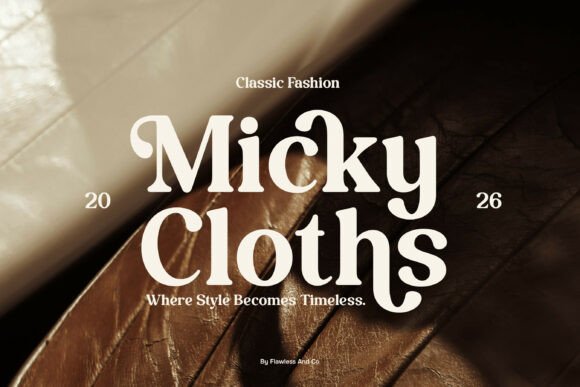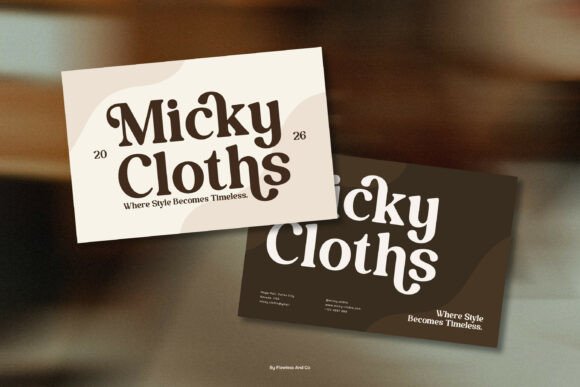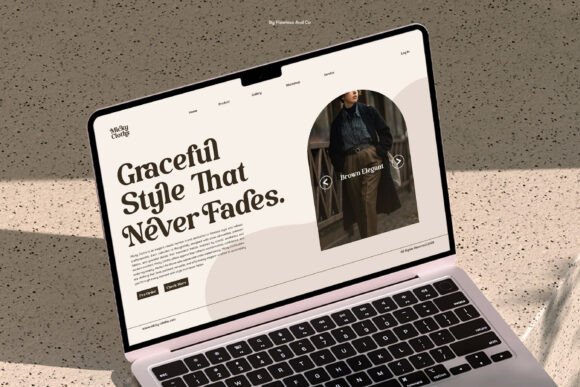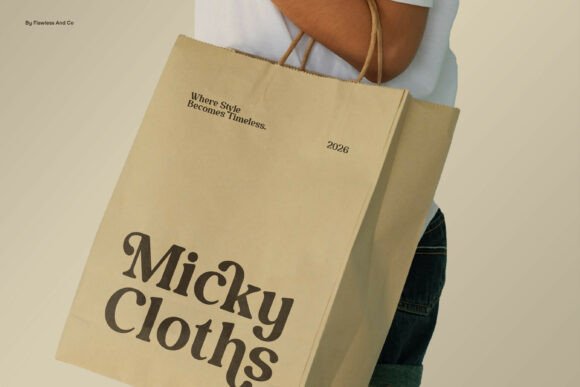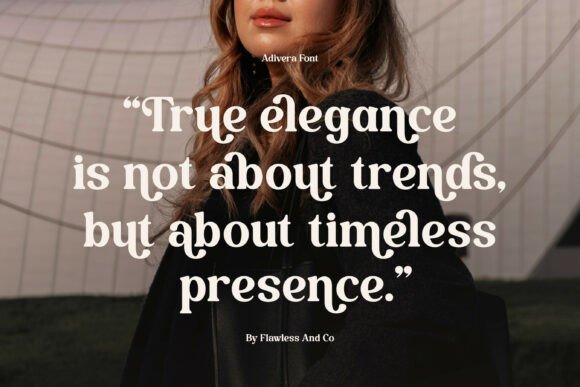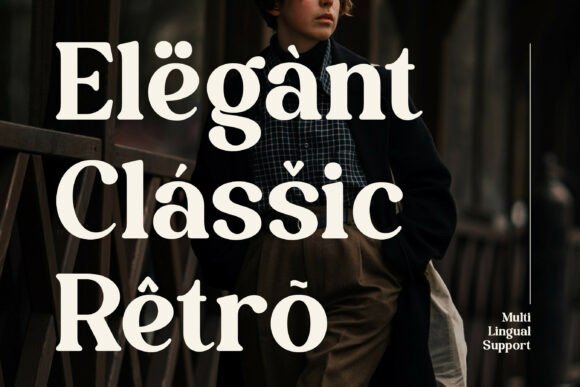
Adivera Font: A Timeless Classic for Elegant Designs
In the world of typography, few fonts manage to capture the essence of classic elegance while also exuding a warm, vintage charm. Adivera Font is one such typeface that seamlessly blends timeless sophistication with a retro personality, making it an ideal choice for designers looking to create visually striking content. Whether you’re working on a branding project, crafting a logo, or designing a website, Adivera’s balanced letterforms and stylish presence ensure that your text looks classy and professional.
The Essence of Adivera Font
Adivera is a beautiful classic retro serif typeface that has been crafted to bring a touch of nostalgia to your designs. Its retro character is instantly recognizable, yet it maintains a level of sophistication that is hard to find in more modern fonts. This unique combination makes Adivera perfect for a wide range of applications, from headlines and display text to logos and branding materials.
Key Features of Adivera Font
- Classic Retro Serif Design: Adivera’s serif design pays homage to traditional typography while incorporating a retro twist that sets it apart from more conventional serif fonts.
- Balanced Letterforms: Each letterform in the Adivera font has been carefully crafted to ensure balance and harmony, making it easy to read and visually appealing.
- Timeless Elegance: Adivera’s elegant design ensures that it remains relevant across various design contexts, from vintage-inspired projects to modern digital content.
- Warm Vintage Character: The font’s warm, vintage character adds a touch of personality to your designs, making them stand out in a crowded digital landscape.
- Versatility: Adivera works effortlessly across both headlines and display text, making it a versatile choice for designers.
Why Choose Adivera Font?
Choosing the right font for your design project can be daunting, but Adivera offers several compelling reasons to make it your top choice:
- Eye-Catching Visuals: Adivera’s unique retro personality helps create eye-catching visuals that capture attention and leave a lasting impression.
- Professional Look: Despite its vintage charm, Adivera maintains a classy and professional look that is suitable for a wide range of applications, from corporate branding to creative projects.
- Easy to Read: The balanced and stylish design of Adivera ensures that your text is not only visually appealing but also easy to read, making it perfect for both headings and body text.
Using Adivera Font in Your Designs
Adivera Font is a versatile and elegant typeface that brings a touch of classic retro charm to your designs. Its balanced letterforms, stylish presence, and warm vintage character make it an excellent choice for designers looking to create visually striking and professional content. Whether you’re working on a branding project, website design, or any other creative endeavor, Adivera is sure to enhance your designs and leave a lasting impression on your audience.
So, if you’re looking for a font that combines timeless elegance with a retro personality, look no further than Adivera. Its unique blend of classic sophistication and vintage charm makes it the perfect addition to your design toolkit.